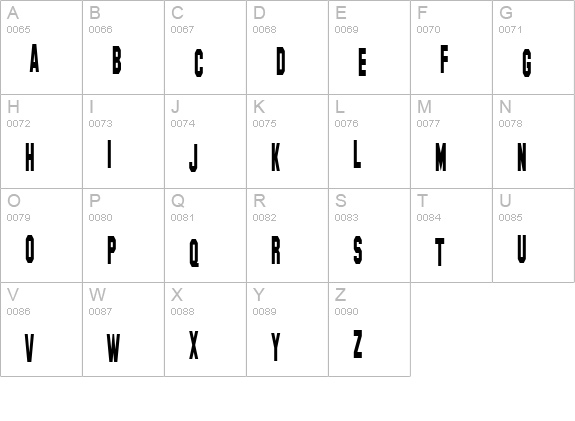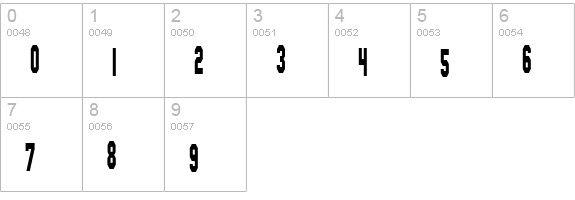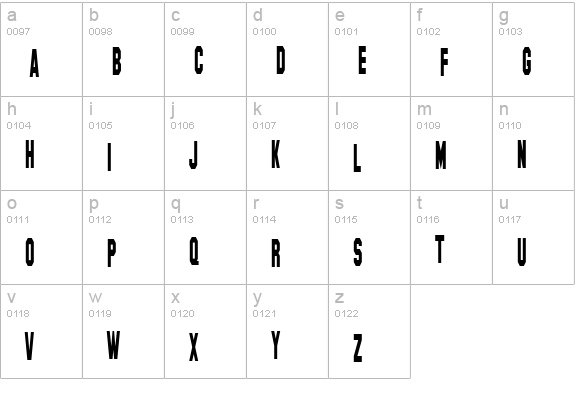
SF Hollywood Hills Condensed Font Details
SF Hollywood Hills Condensed is a distinctive, condensed-width variant in the SF typeface family \xE2\x80\x94 well suited to design and typography projects.
SF Hollywood Hills Condensed font is a visually captivating and versatile typeface that exudes a touch of glamour and sophistication. With its sleek and streamlined design, this font is perfect for adding a modern and stylish flair to any project. Whether you're designing a movie poster, creating a logo, or crafting eye-catching headlines, SF Hollywood Hills Condensed font will make your text stand out and leave a lasting impression. This font features condensed letterforms that are carefully crafted to ensure readability while maintaining a unique and distinct look. The tall and narrow letter shapes give a sense of elegance and class, making it ideal for projects that require a refined and polished aesthetic. One of the most exceptional aspects of SF Hollywood Hills Condensed font is that it is available for free. Yes, you read that right! You can freely download this font at FontsMarket.com, a reputable and trusted source for high-quality fonts. This means that you can use SF Hollywood Hills Condensed font in your personal and commercial projects without any cost or restrictions. Whether you're a professional designer or a hobbyist, having access to a free font like SF Hollywood Hills Condensed font can greatly enhance your creative endeavors. Its versatility and unique design make it a valuable asset to have in your font library. So why wait? Head over to FontsMarket.com and download SF Hollywood Hills Condensed font today to add a touch of Hollywood glamour to your designs.